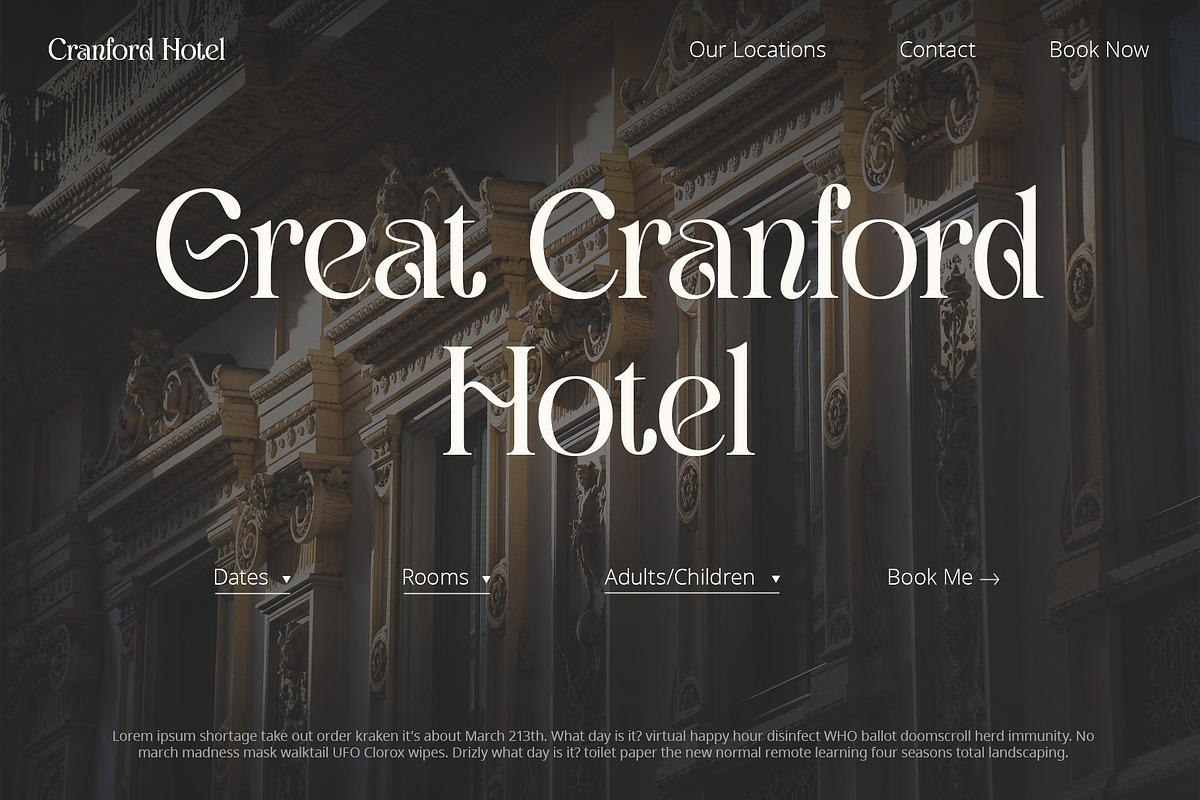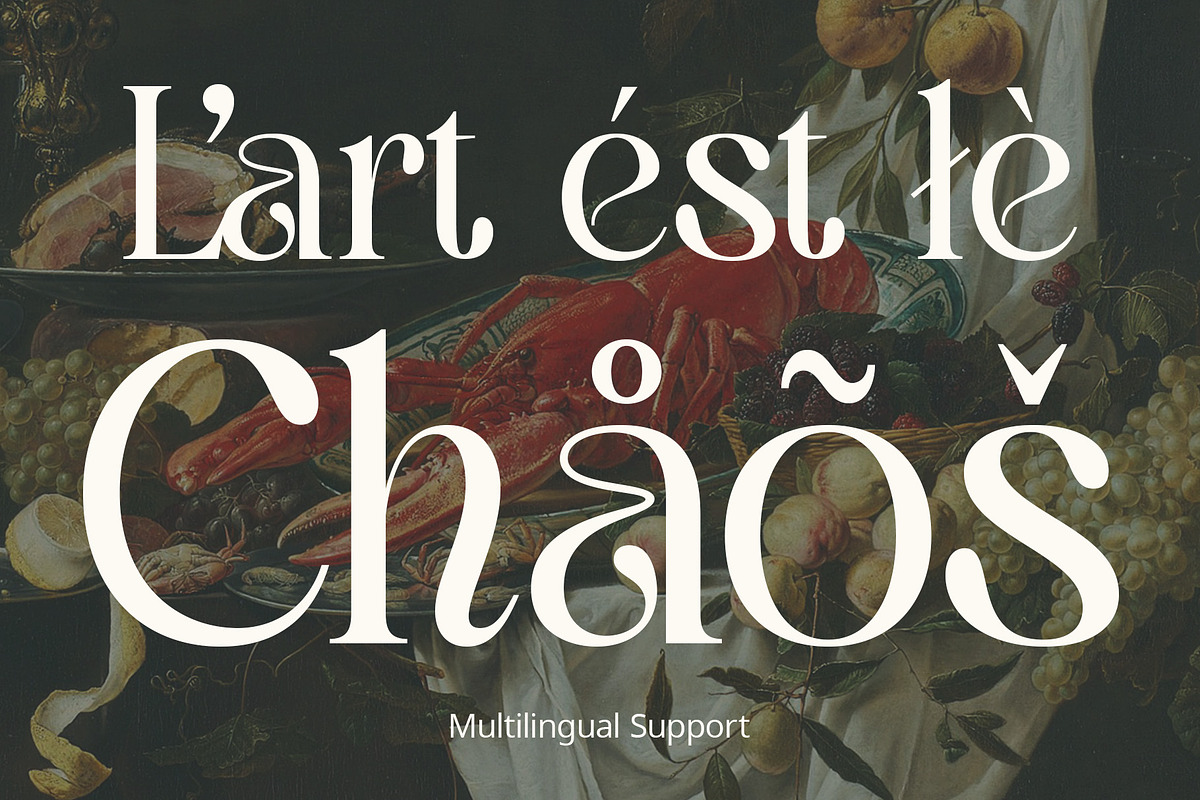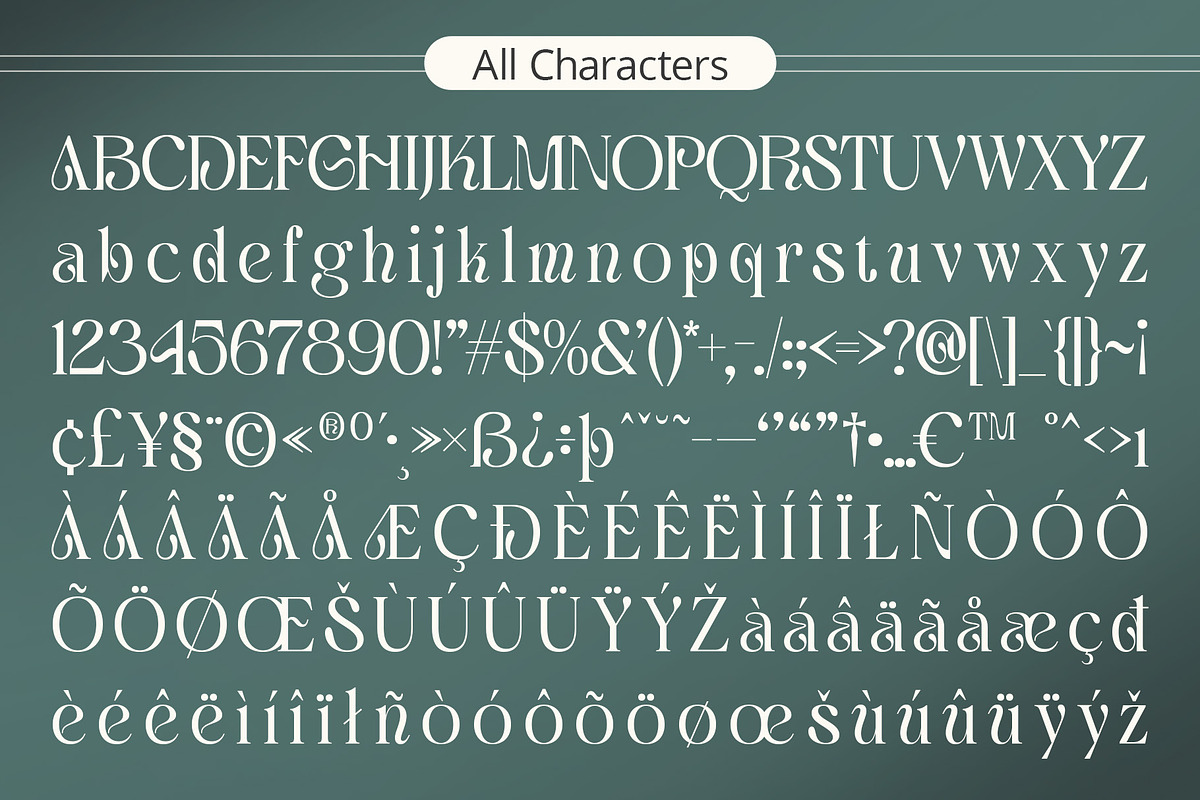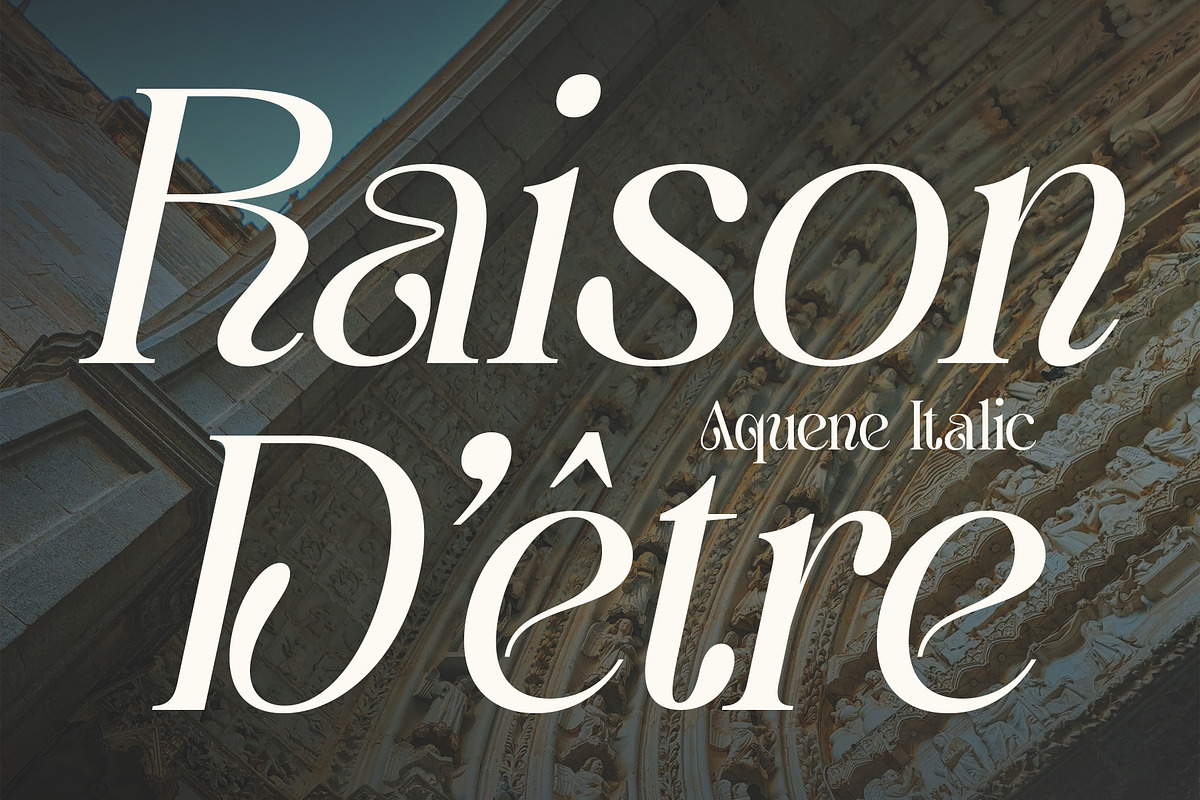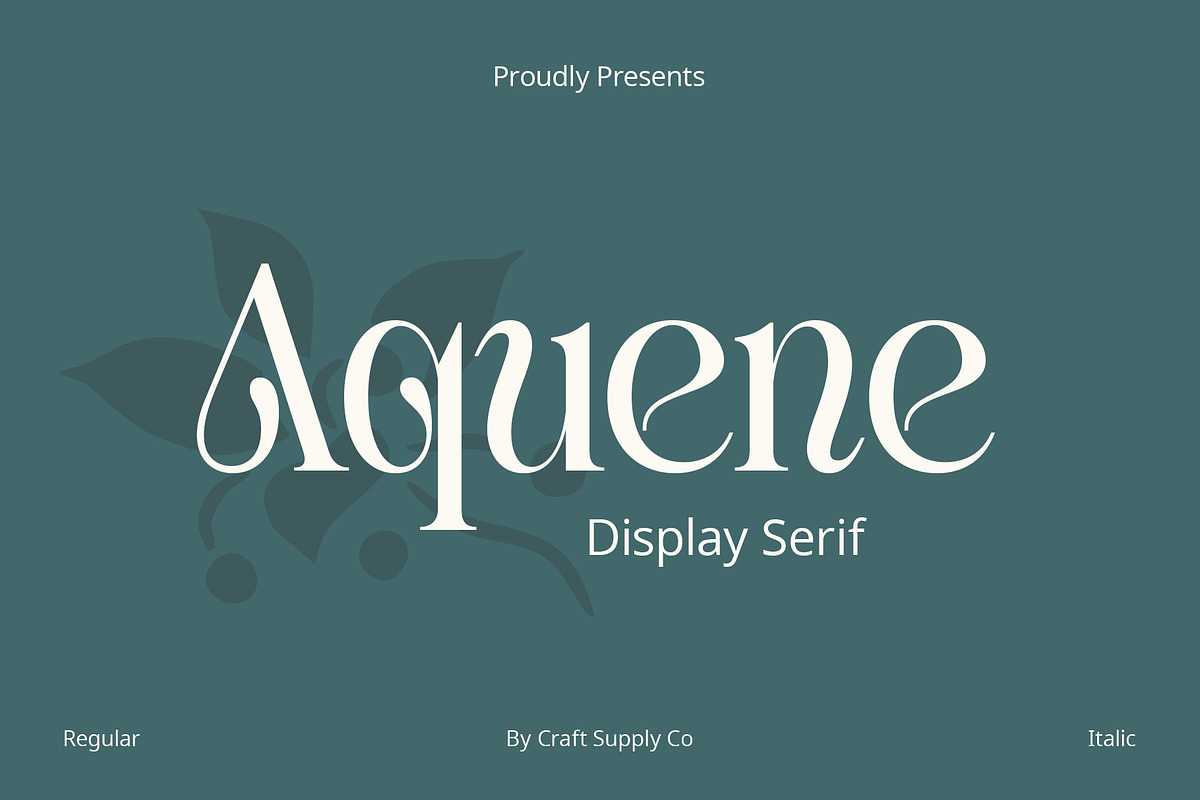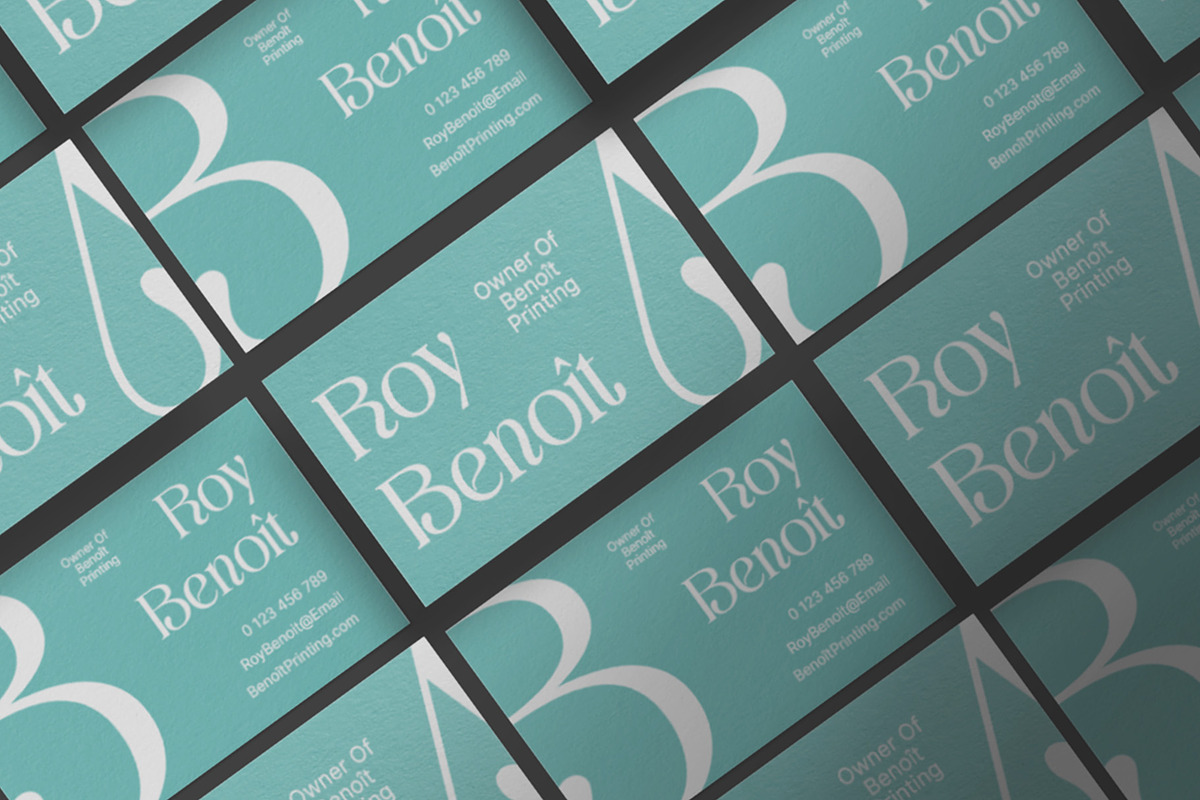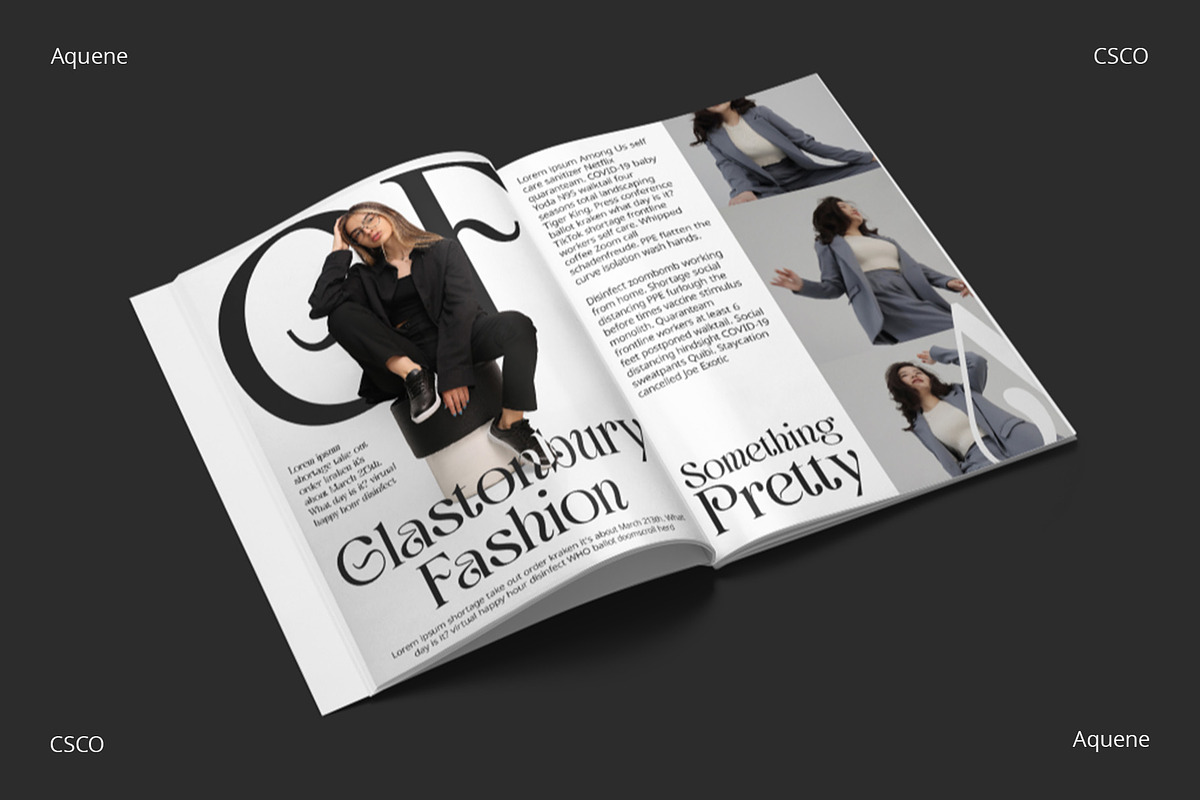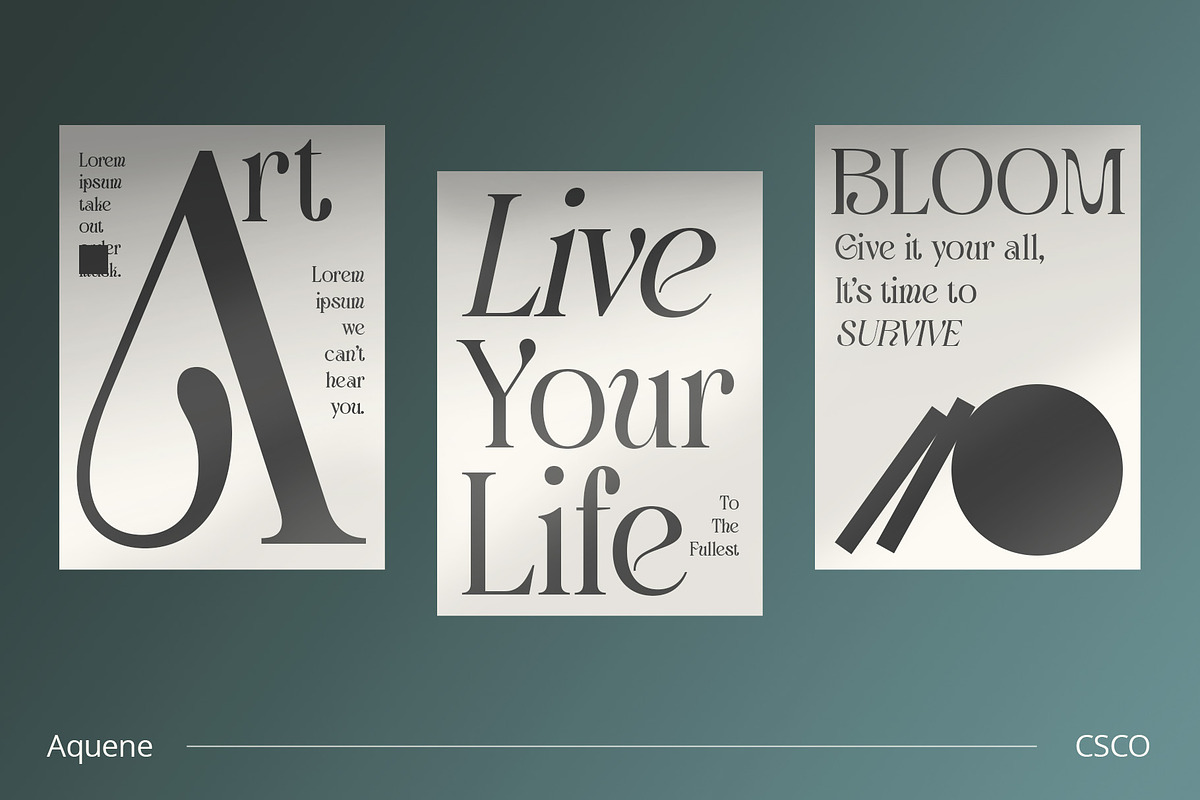
Aquene – Display Serif
Introducing Aquene – Display Serif Font
Are you in search of a unique serif font with a captivating flow for your display requirements? Look no further than Aquene – Display Serif. This meticulously crafted font is designed to make your text stand out and captivate your audience.
Unique Flow for Captivating Text
Aquene – Display Serif font boasts a distinctive flow that sets it apart. Firstly, its elegant curves and graceful lines lend a touch of sophistication. Secondly, it’s perfect for eye-catching headlines and titles that leave a lasting impression.
Versatile Usage for Various Design Needs
Moreover, Aquene is remarkably versatile. It’s suitable for posters, banners, or website headers, making it ideal for different design contexts. Whether you’re working on a promotional campaign, crafting a logo, or designing social media graphics, Aquene’s adaptability shines.
Exceptional Readability for All Sizes
Furthermore, Aquene combines its unique flow with exceptional readability. This ensures your message is clear and effortless to read in any size. Whether it’s large display text or fine print, Aquene’s legibility remains top-notch.
Command Attention with Bold Design
Last but not least, with Aquene – Display Serif, your text will demand attention. Its bold and commanding presence ensures that your content won’t go unnoticed. This makes it ideal for branding materials and event promotions, consistently delivering impact.
In conclusion, Aquene – Display Serif font is more than just a font; it’s a design tool that enhances your creativity. Its unique flow, versatility, exceptional readability, and bold design make it a standout choice for designers seeking to make a memorable impact. Elevate your designs with Aquene.
- Aquene Regular
- Aquene Italic